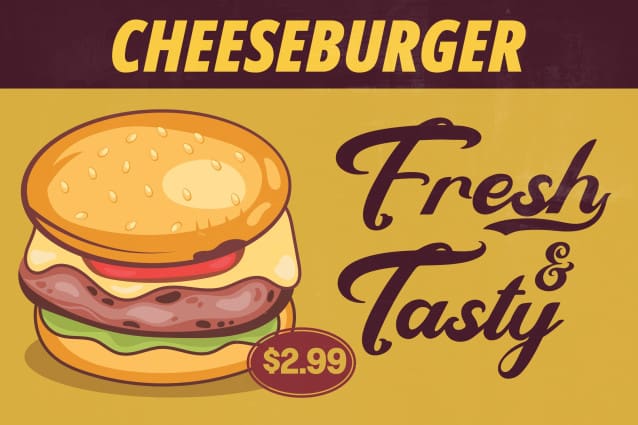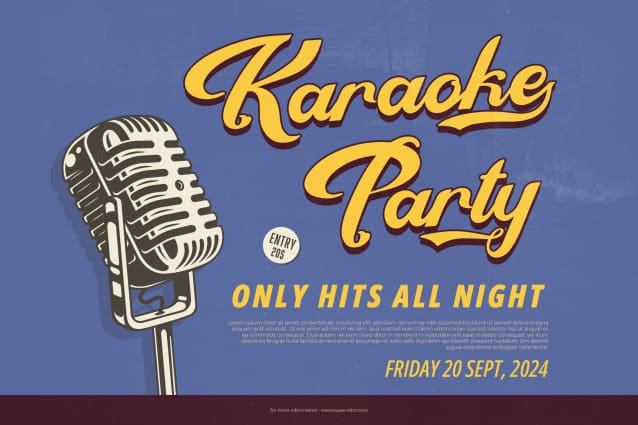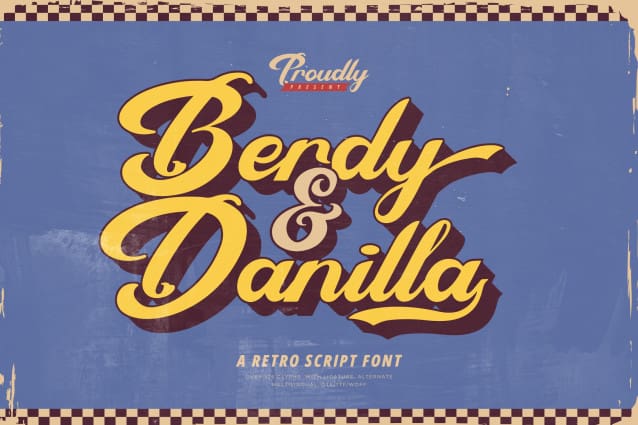
Berdy Danilla Font
Berdy Danilla Font | Retro Script Font, from Denustudios, suitable for any projects such as: logos, branding projects, homeware designs, product packaging, mugs, quotes, posters, shopping bags, t-shirts, book covers, name card, invitation cards, greeting cards, label, photography, watermark, special events, and all your other lovely projects that need a Retro Script Font taste.